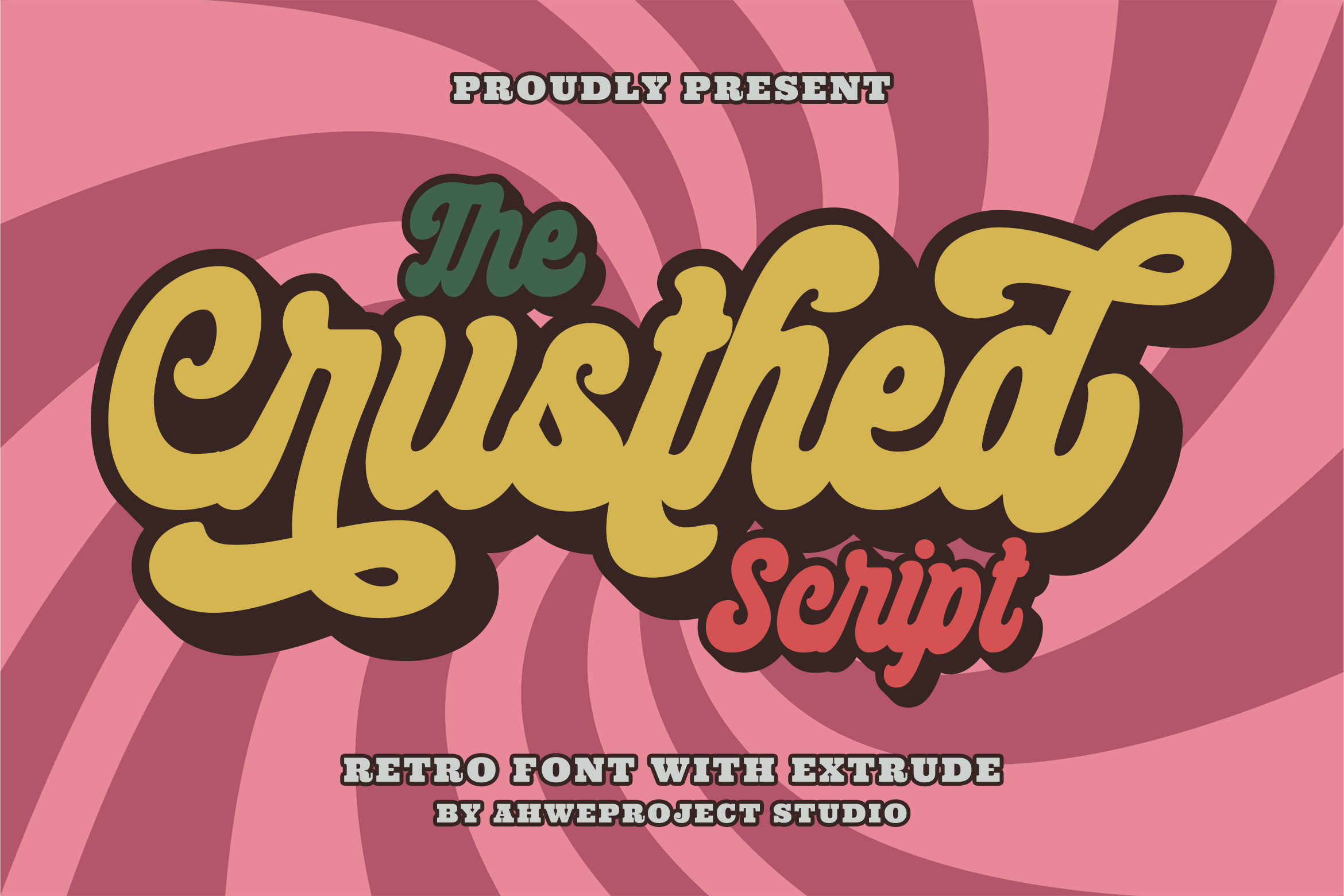
The Crusthed - Bold Retro Style Font
About The Crusthed - Bold Retro Style
The Crusthed is a bold retro-style display font. With a retro and groovy vibe, this font is suitable for a wide pool of design ideas. This font reads as strong, confident, and dynamic and can add tons of nostalgic character to your designs.